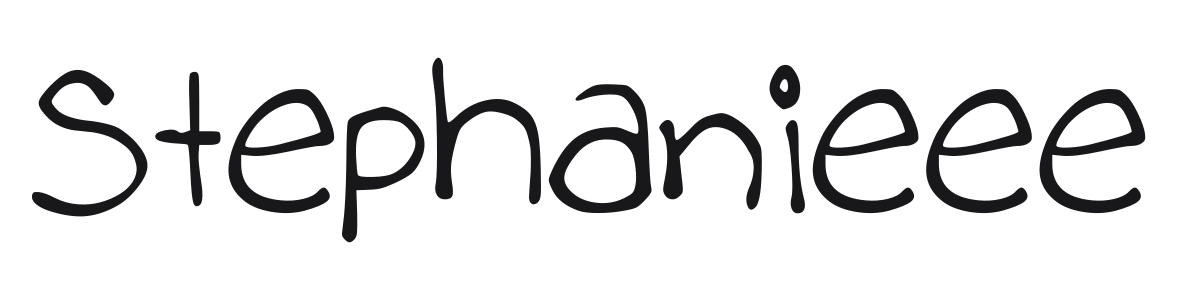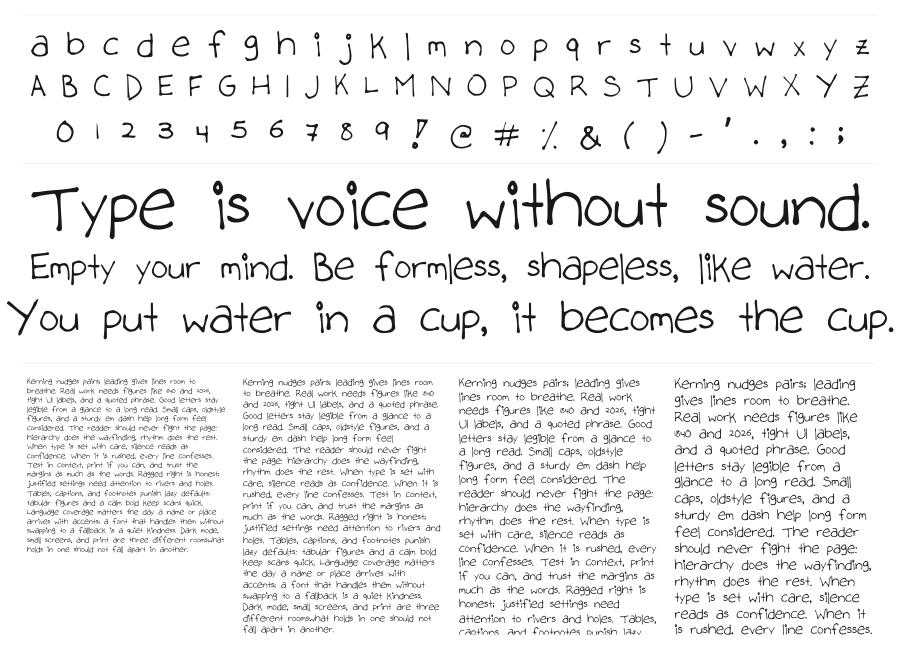
Stephanieee
by S Y
Stephanieee is a thin, casual handwritten face by S Y with a loose, bouncy rhythm that feels like a note scribbled by someone with naturally charming penmanship. The lightweight strokes and slightly quirky letterforms keep it feeling friendly and informal, making it a good pick for personal branding, greeting cards, social media graphics, or anywhere you want type that reads as genuinely human.